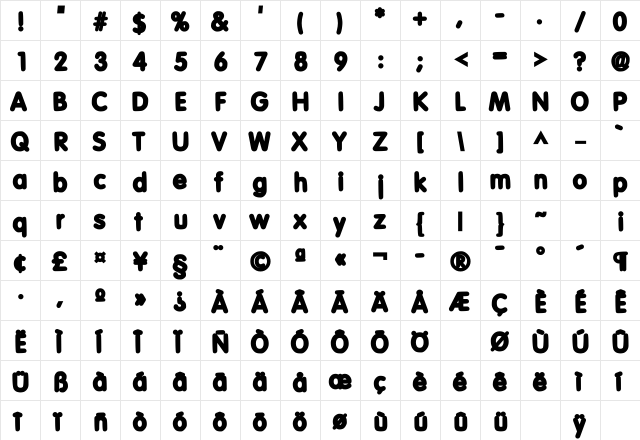
Elementary SF Black Bold
Design Context for Elementary SF Black Typeface
Elementary SF Black takes a measured approach to typography — its balanced proportions and neutral character make it a reliable workhorse for both digital and print work. Its bold stroke weight gives it real presence on the page.
Pro Tip: Use Elementary SF Black in both headline and body roles to test its range before committing to a single application.